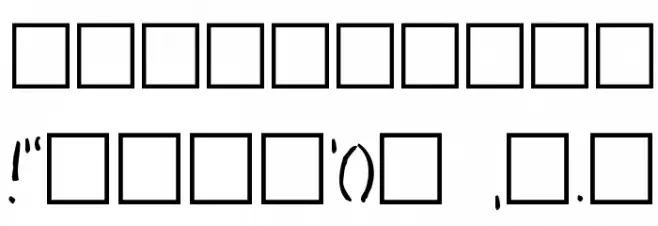
Leck Font
Leck Description
This font features a playful and casual handwritten style, characterized by its uneven strokes and slightly irregular letterforms. The uppercase letters are bold and dynamic, with a sense of movement that adds a lively touch to any text. The lowercase letters maintain this energetic feel, with some letters having distinctive loops and curves that enhance the handwritten aesthetic. The font's overall appearance is informal and approachable, making it suitable for projects that require a personal or creative touch. The special characters and numbers follow the same style, ensuring consistency throughout the typeface.
A playful, handwritten font with dynamic and irregular strokes from Uncategorized fonts.
- Proposed Projects: Ideal for greeting cards, invitations, personal branding, and creative projects.
- Overall Style: Casual
- Use Case: Headlines, Informal text, Creative projects